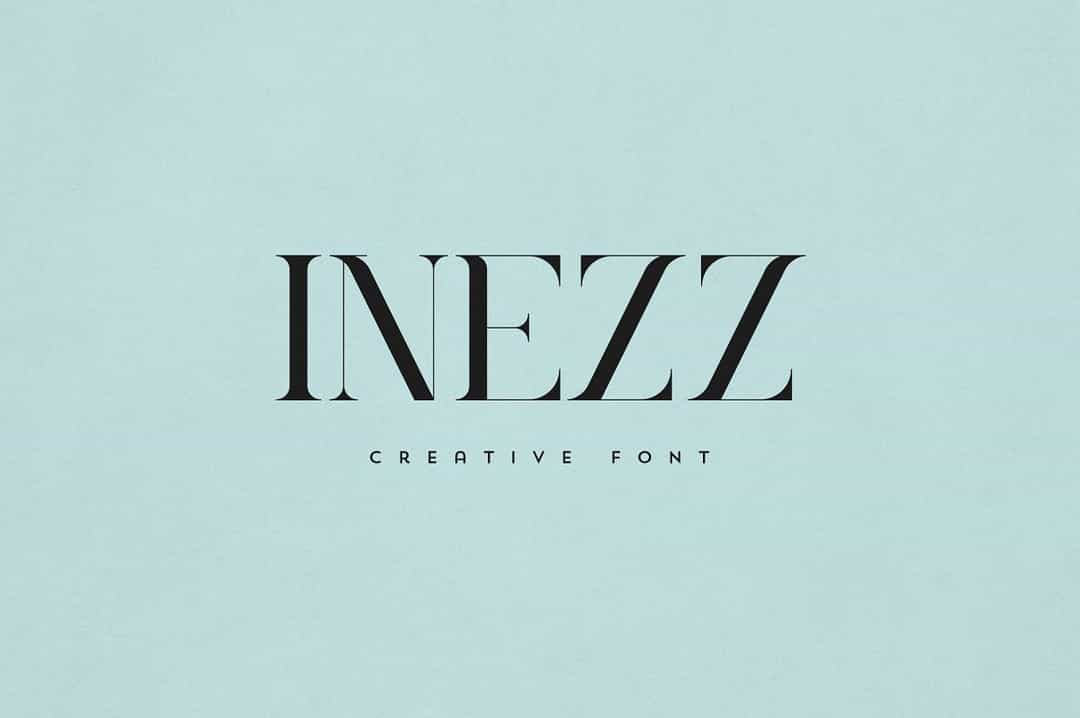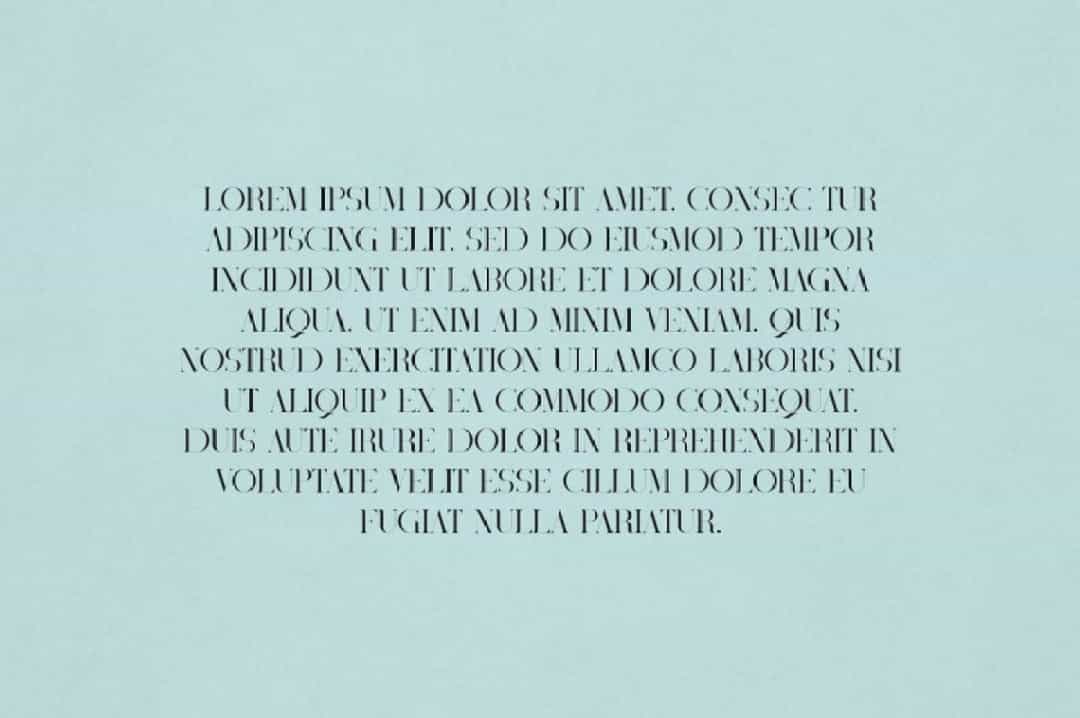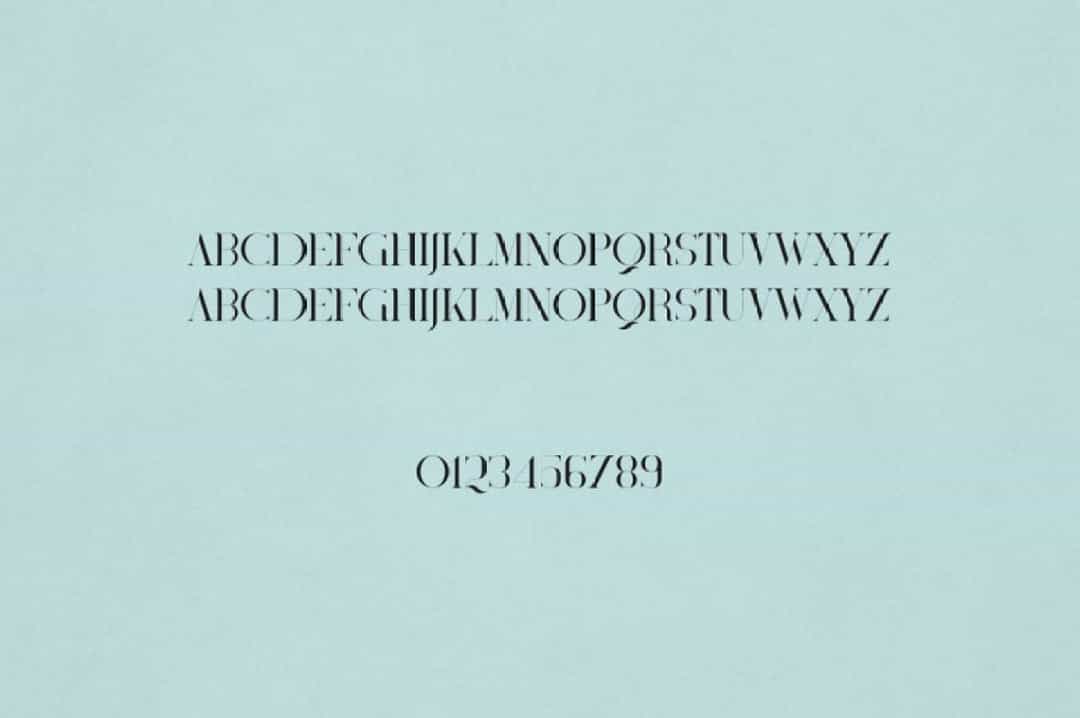
Inezz is a stunning serif typeface designed to make your typography stand out! Perfect for headlines, logos, branding designs or simple text – its elegance will leave anyone in awe! Suitable for home-ware projects, branding designs for products packaging designs and magazine headers alike; or simply use as an elegant text overlay on every background picture!